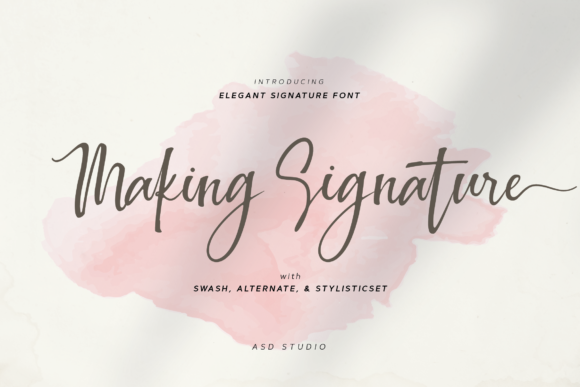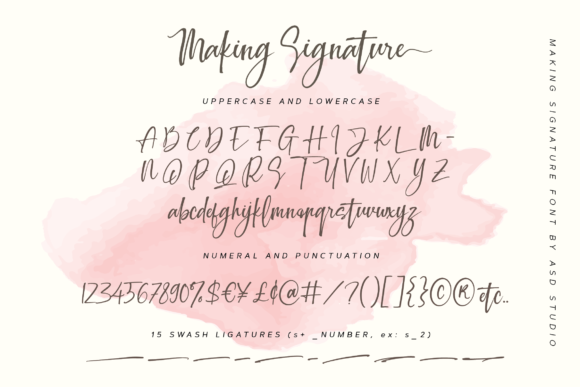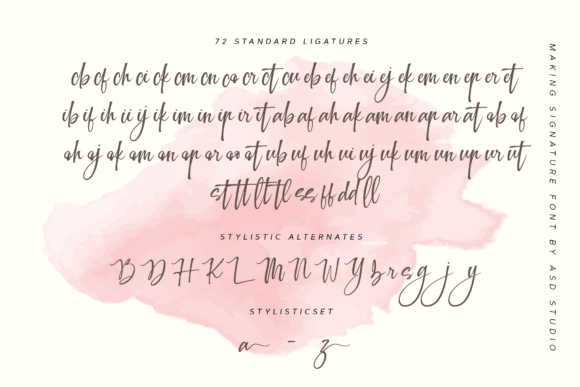
About Making Signature Font
Making Signature is a beautiful, light handwritten font, having a stunning impact. It will add a luxury spark to any design project that you wish to create! This font is PUA encoded which means you can access all of the amazing glyphs and ligatures with ease!